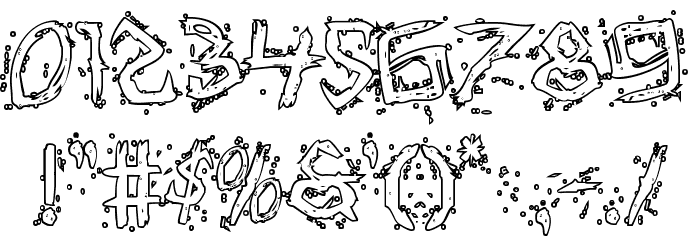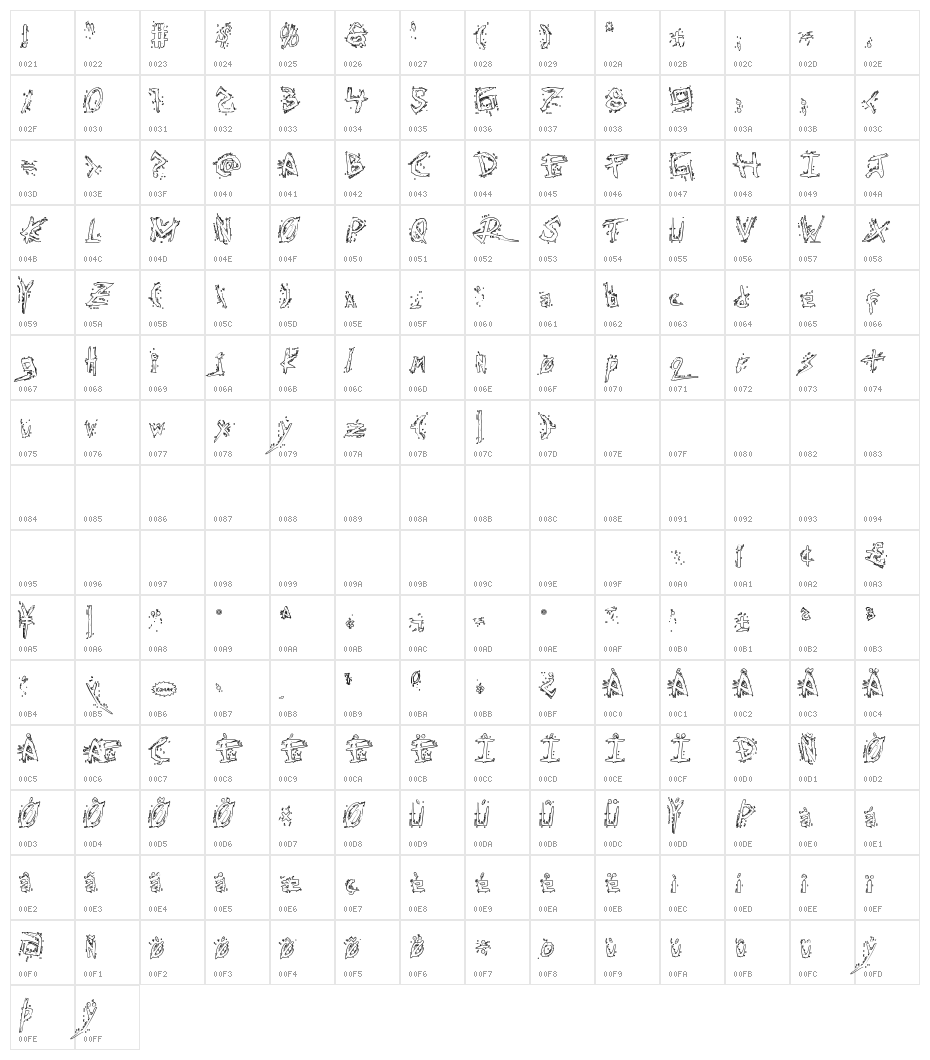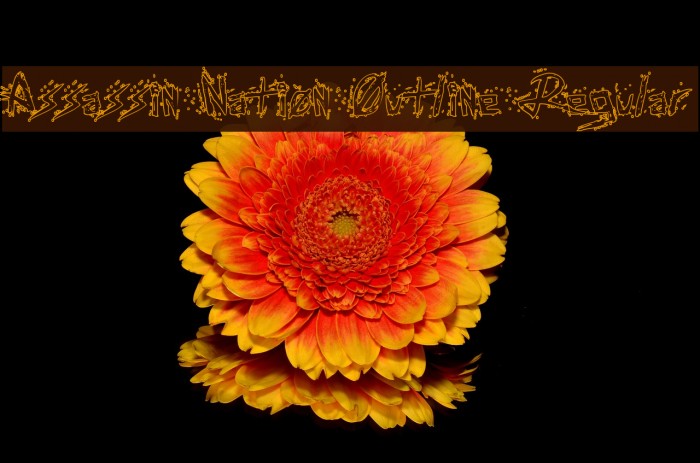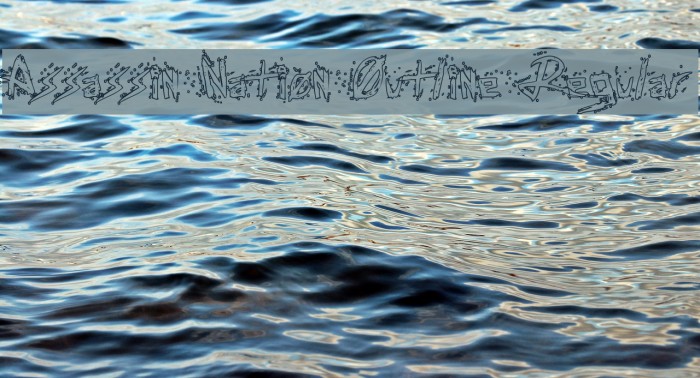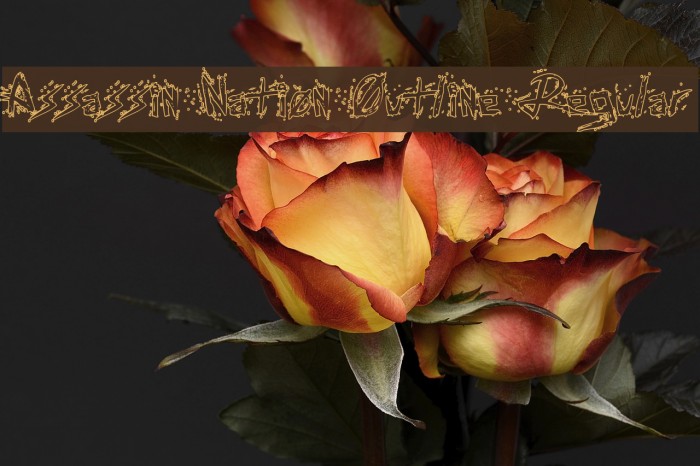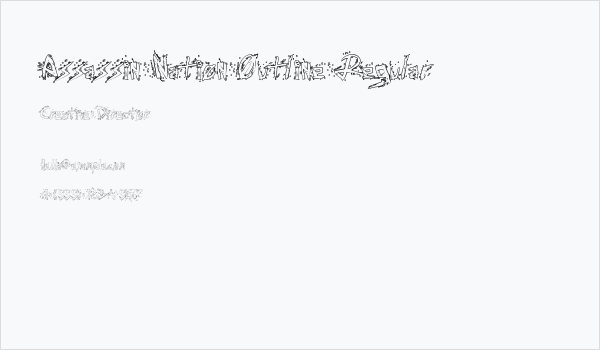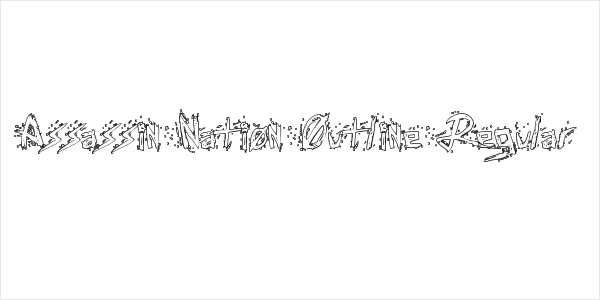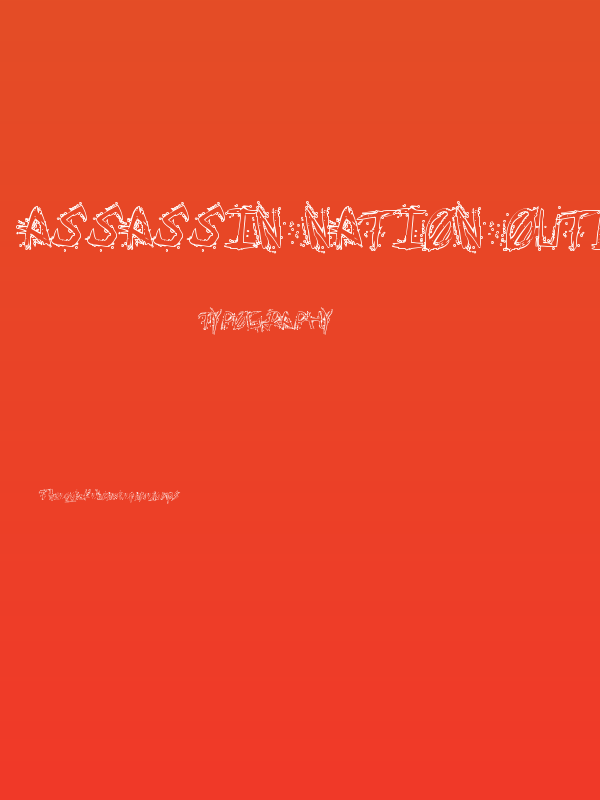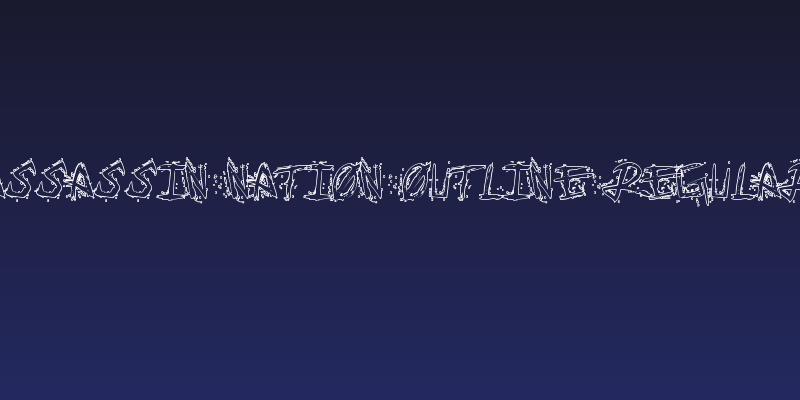
Assassin Nation Outline Regular Font
Assassin Nation Outline Regular Description
This font features an edgy, graffiti-inspired design with an outline style that gives it a raw, urban feel. The characters are irregular and jagged, with a hand-drawn appearance that adds a sense of movement and energy. Each letter is surrounded by a rough, sketch-like outline, enhancing its rebellious and unconventional aesthetic. The font is highly decorative, making it ideal for projects that require a bold, eye-catching look. The uppercase and lowercase letters maintain a consistent style, while the numbers and special characters follow the same dynamic and artistic approach.
| Overall Style | Modern, Urban |
| Proposed Projects | Perfect for street art designs, music album covers, event posters, and edgy branding projects. |